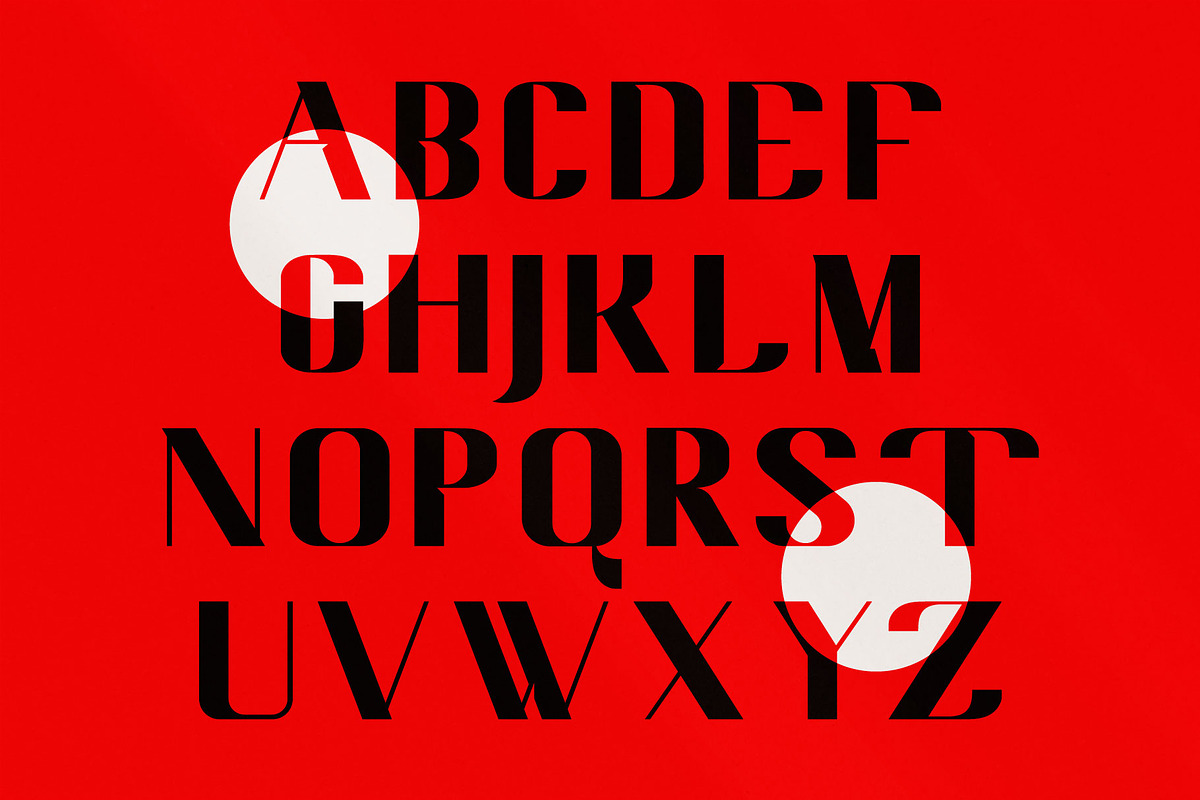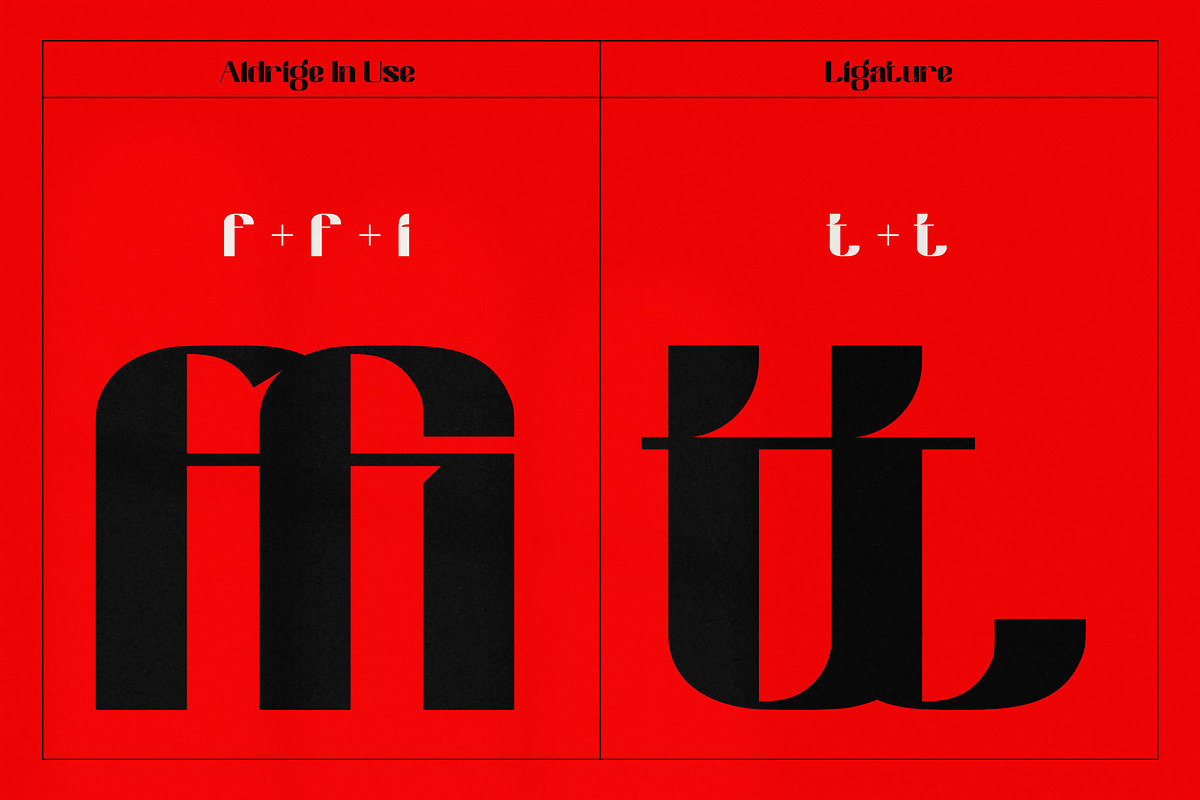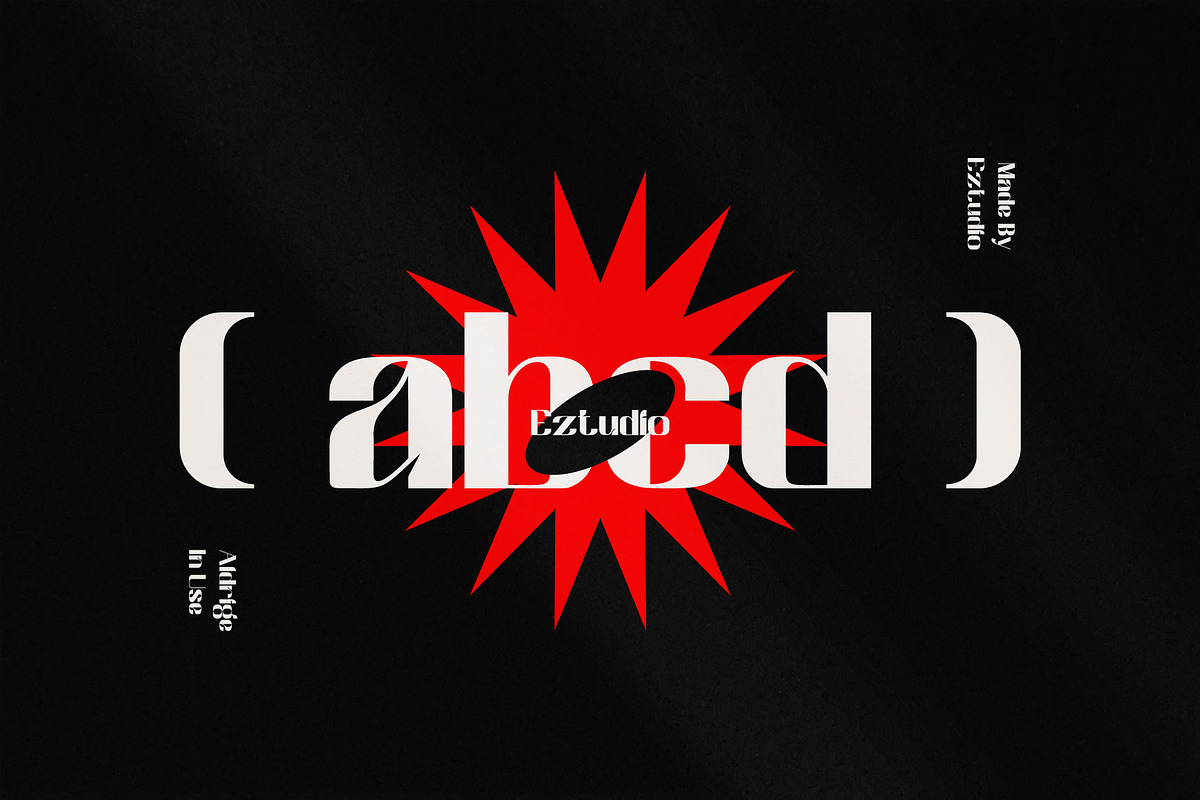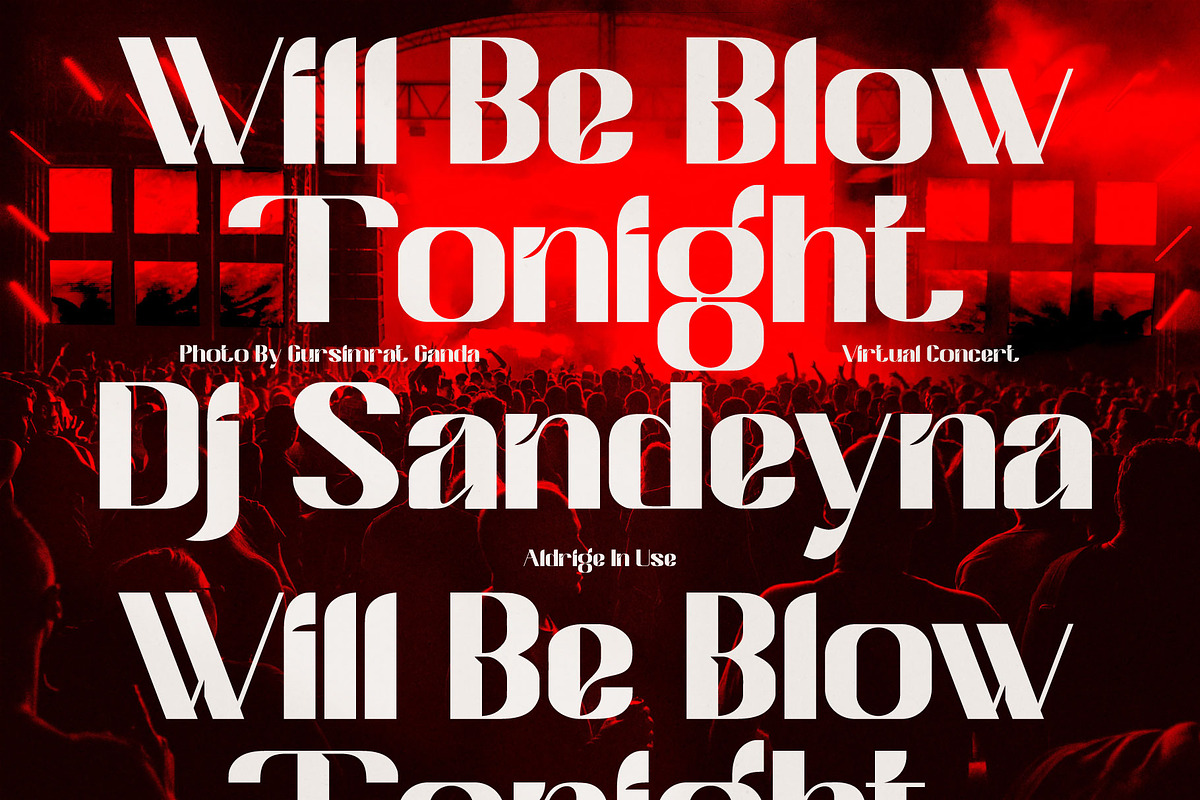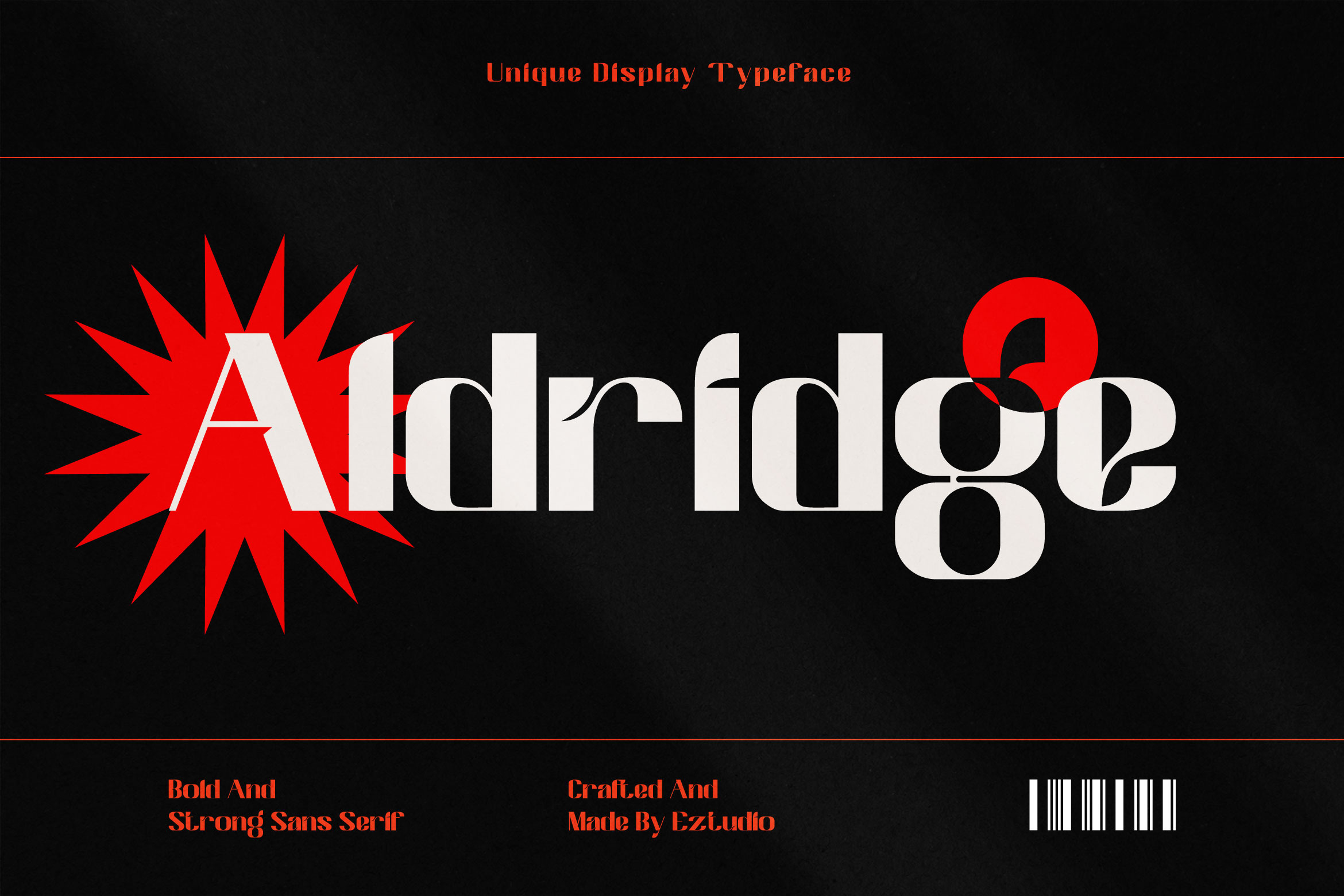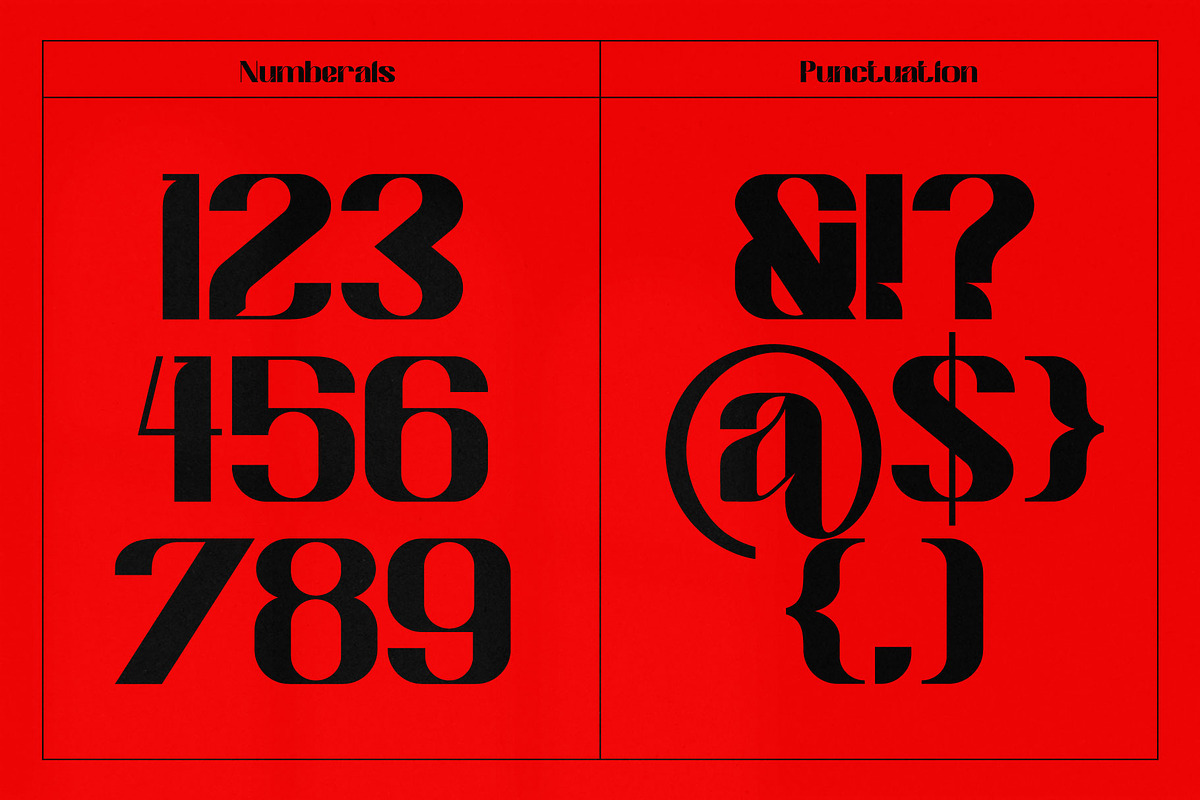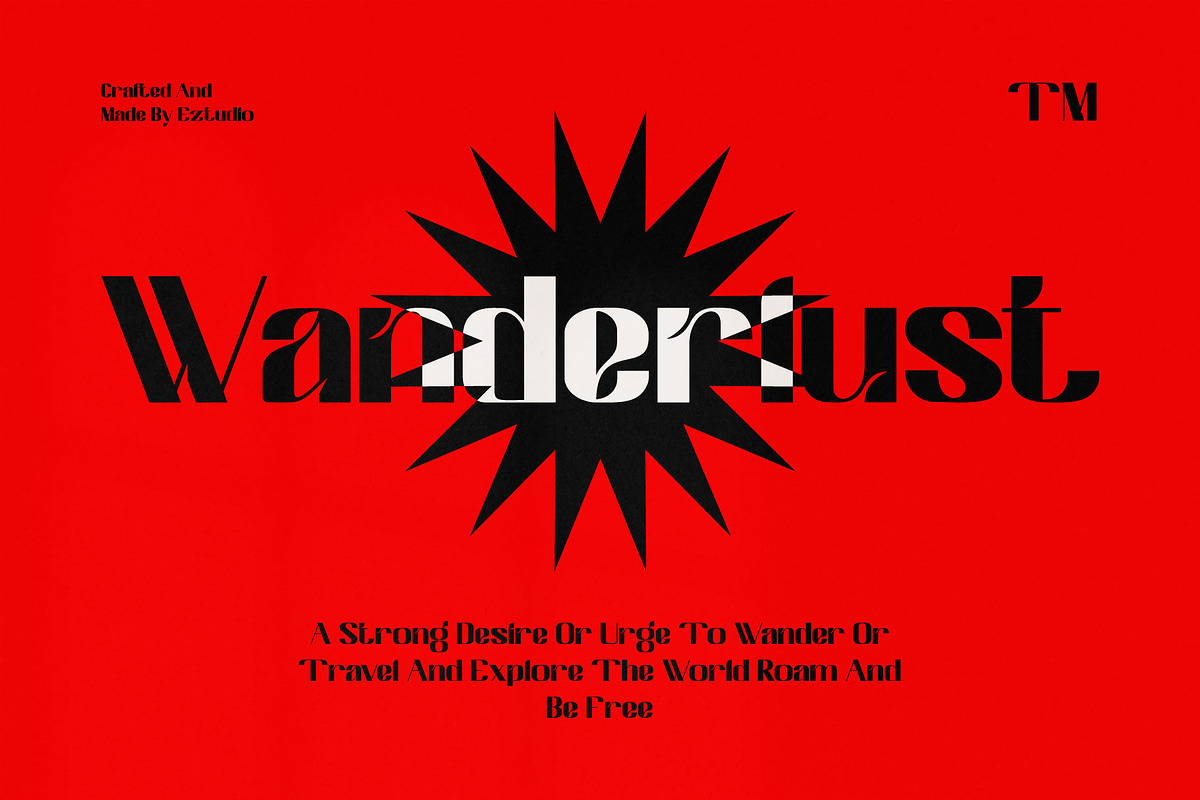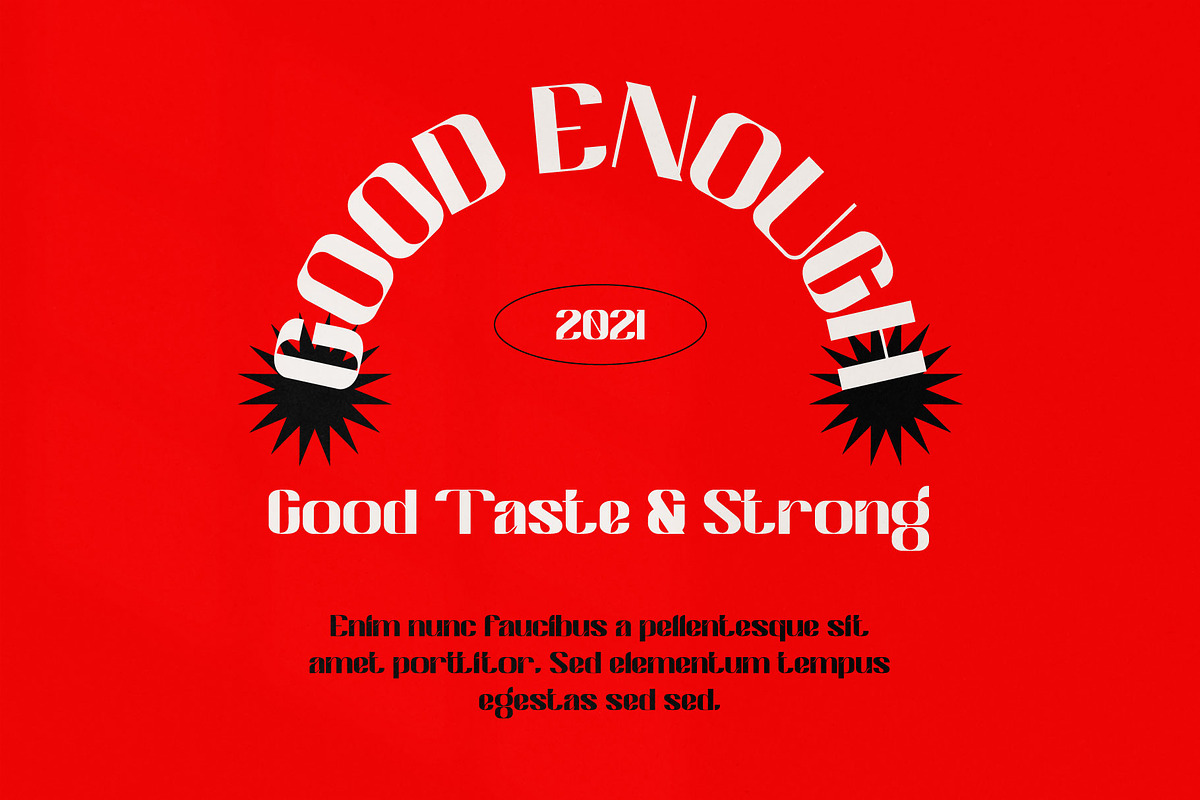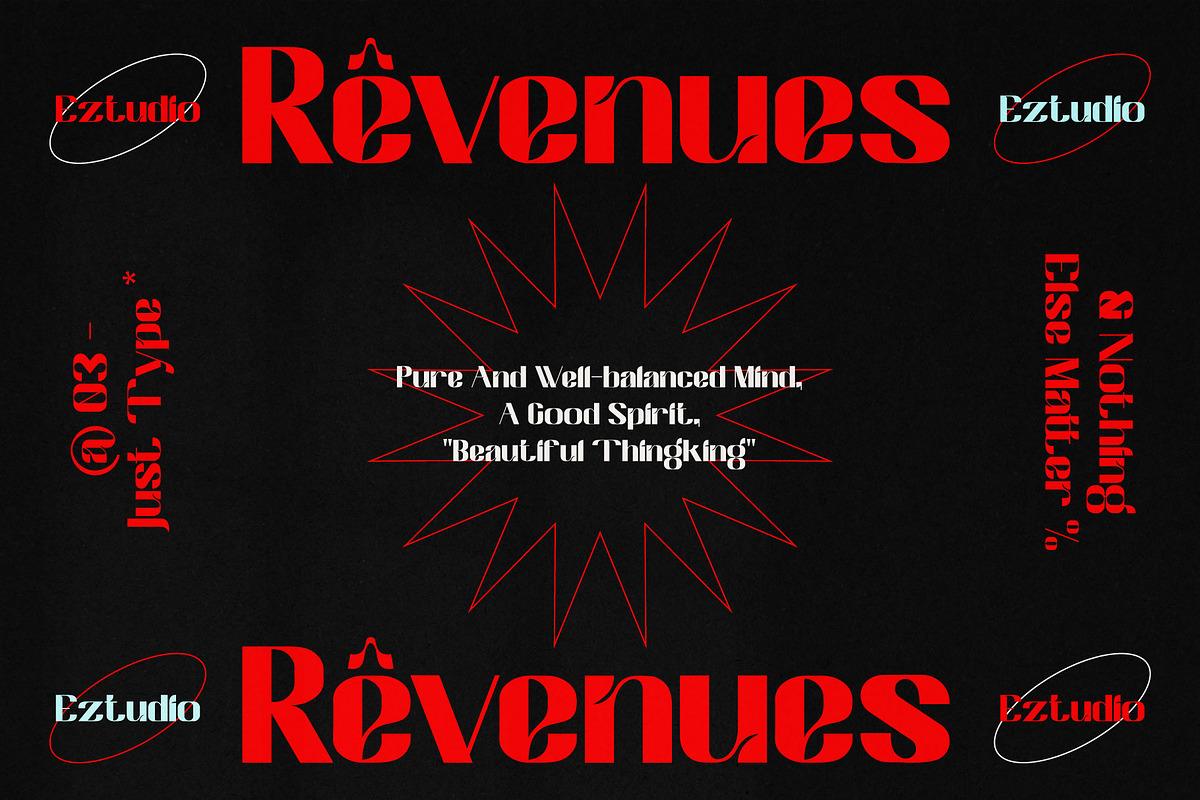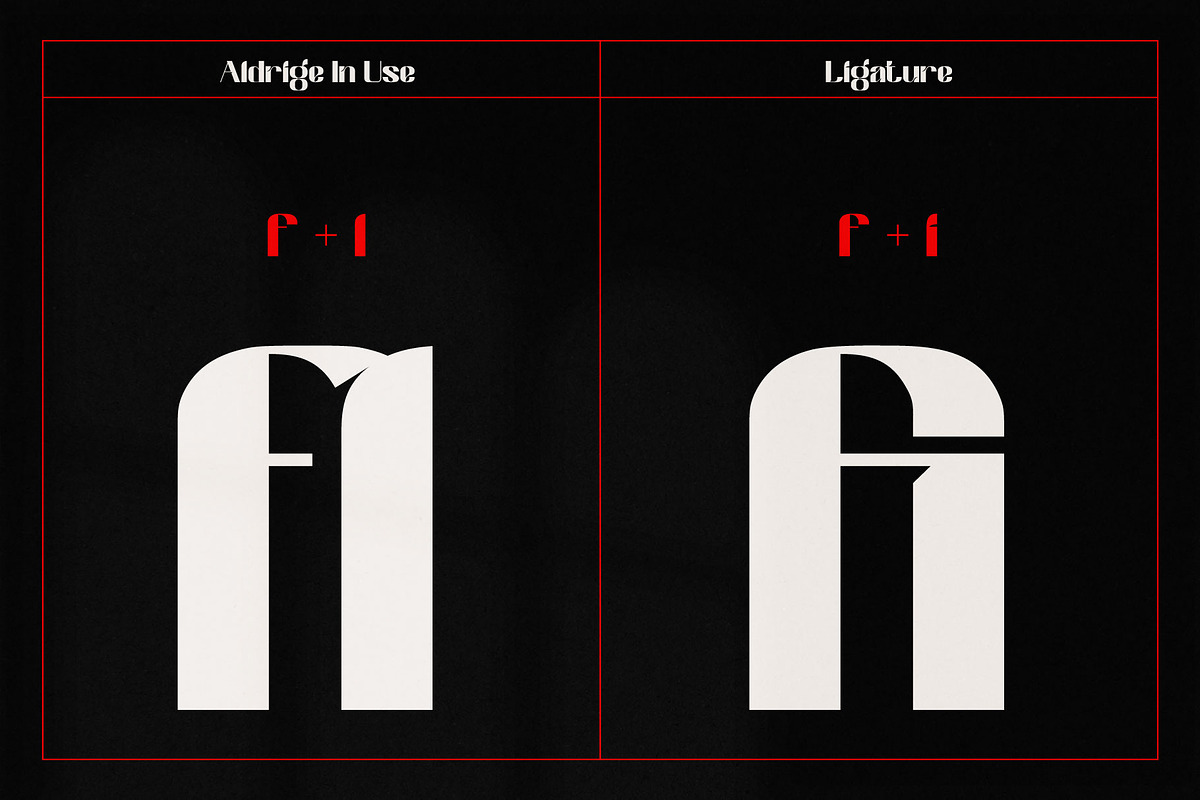
Aldridge - Modern Display Font
Aldridge is a cool, bold and modern display font. This font is suitable for designs such as t-shirts, sportswear, logos, advertisements, clothing, and more.
The Aldridge font includes:
- Uppercase Letters
- Lowercase Letters
- Special Characters
- Multilingual Glyphs